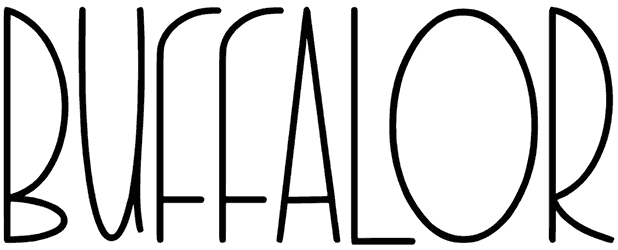
Buffalor Font
Use the Buffalor font to quickly turn any serious and boring design into an interesting and fun one. This doodle font can always make you look creative and productive, and is very suitable for projects with a young audience.
So if you are designing a poster for a festival or movie for teenagers, or you want to create packaging for children’s food products, Buffalor will provide you with a lot of space even without lowercase letters.